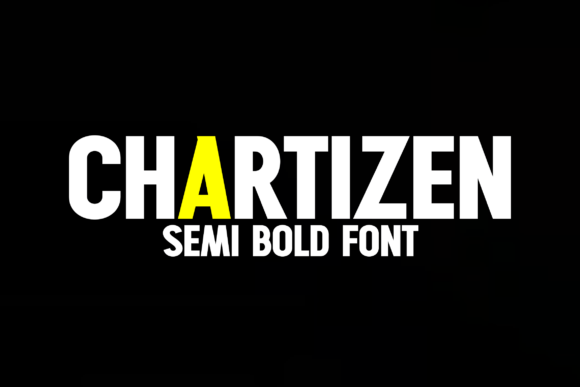
Chartizen: A Bold, Clean Sans Serif for Real Branding Work
I opened a fresh brand board last week—no client brief yet, just a quiet morning and a half-finished concept for a local ceramic studio. Their work is tactile, grounded, and quietly confident: hand-thrown mugs, matte-glazed tiles, subtle textures. They wanted something that felt modern but not cold, strong but not loud. So I dropped in Chartizen—not as a placeholder, but as a gut-check. And right away, it clicked.
Chartizen is one of those rare sans serif fonts that lands with presence without shouting. It’s semi-bold by nature, but its strength comes from structure—not weight alone. The letterforms are clean and thoughtfully condensed, with a balanced x-height that gives it airiness at small sizes and authority at large ones. There’s an industrial clarity to it—the kind you’d see on a well-designed tool label or a minimalist workshop sign—but it never feels sterile. It’s warm in its precision.
I started testing Chartizen where it matters most: the logo lockup. On a simple wordmark—just the studio’s name in all caps—it held its own against a custom hand-drawn icon. No kerning overcorrection needed. The spacing felt intuitive, the rhythm even. When scaled down to business card size, it stayed legible without thinning out or blurring. That’s not always true with condensed sans serifs, especially in print. Chartizen’s stroke contrast is subtle but effective—enough to guide the eye, not so much that it reads like a tech startup font.
For their packaging, I used Chartizen on product labels: stoneware tags, clay slip stickers, and folded box sleeves. It performed beautifully on uncoated stock—no ink spread, no loss of definition. The uppercase “A”, “M”, and “W” have clean terminals, and the lowercase “e” and “a” avoid the over-engineered quirks that distract in artisan contexts. It doesn’t compete with texture; it complements it.
On their website, I applied Chartizen to headlines and section titles—never body copy (it’s not built for long paragraphs). Paired with a relaxed, slightly organic serif for body text—think a low-contrast, humanist serif with open counters—it created instant hierarchy and warmth. The contrast worked because Chartizen isn’t trying to be friendly; it’s confidently neutral. It lets the serif carry voice while Chartizen carries weight.
In social media graphics, it shined in Instagram story banners and product launch posters. At 48pt on mobile, it rendered crisply—even on older Android devices. I tested it across browsers and noticed zero hinting issues. No fuzzy edges, no awkward line breaks. That reliability matters when you’re handing off assets to a client who’ll update posts themselves.
Here’s what I learned after three rounds of mockups: Chartizen works best as a display font and logo font, not a workhorse text face. It’s ideal for short-form impact—signage, packaging headers, poster titles, app buttons, merch tags. It’s not meant for email newsletters or blog intros. But where it *is* meant to live? It delivers with consistency.
I also checked the full family before committing. The standard release includes six weights (Light through Black), true italics, and a set of stylistic alternates—especially useful for tightening up tight logo spaces or adding nuance to monogram treatments. OpenType features include ligatures, case-sensitive forms, and localized glyphs for Western European languages. No Cyrillic or extended Asian language support, so I’d steer clear for global-facing brands—but for U.S., Canadian, or EU-based small businesses? It’s more than sufficient.
Font pairing came naturally. With a soft, slightly irregular script font, Chartizen grounded the composition instead of fighting it. With another sans serif? Only if that second face had noticeably different proportions—say, a tall, airy geometric or a rounded, friendly grotesque. Pairing it with something too similar (like another condensed semi-bold) made things feel flat, not layered. My go-to combo ended up being Chartizen (Bold) + a warm, low-contrast serif (Regular) + a single-line handwritten accent (for limited use—like a tagline flourish).
One practical tip: always test Chartizen at real-world sizes *before* locking in your system. Print a few versions of a business card at actual scale. Drop it into a Shopify product page preview. Paste it into a Canva template your client might actually use. I caught a minor tracking issue in all-caps subheadings only after exporting a PDF—I’d missed it on screen. A quick 20-unit adjustment fixed it. Small things, but they add up in final delivery.
It also handled color shifts gracefully. Whether printed in deep charcoal on cream paper or set in crisp white over a muted sage background online, Chartizen retained its shape and tone. No optical illusions, no unexpected weight shifts—just steady, readable presence. That’s huge when your client is ordering 500 coasters and can’t afford a repress.
What surprised me most was how well it translated across mediums. A sign painted on reclaimed wood? Chartizen held its geometry without looking digital. A stitched embroidery patch? Its clean terminals translated cleanly into thread count. Even on a heat-pressed tote bag, the letterforms stayed distinct at 16 inches wide. That versatility—between digital, print, and physical—is rare in a premium font this focused.
If you’re building a brand identity for a creative studio, boutique, café, or handmade shop—and you need typography that says “I mean business, but I respect your time and taste”—Chartizen earns its place early in the process. Not as a default, but as a considered choice. It doesn’t try to be everything. It’s a sans serif that knows its role: to clarify, to anchor, to command attention—quietly, cleanly, and without compromise.
And honestly? That’s exactly what good branding typography should do.